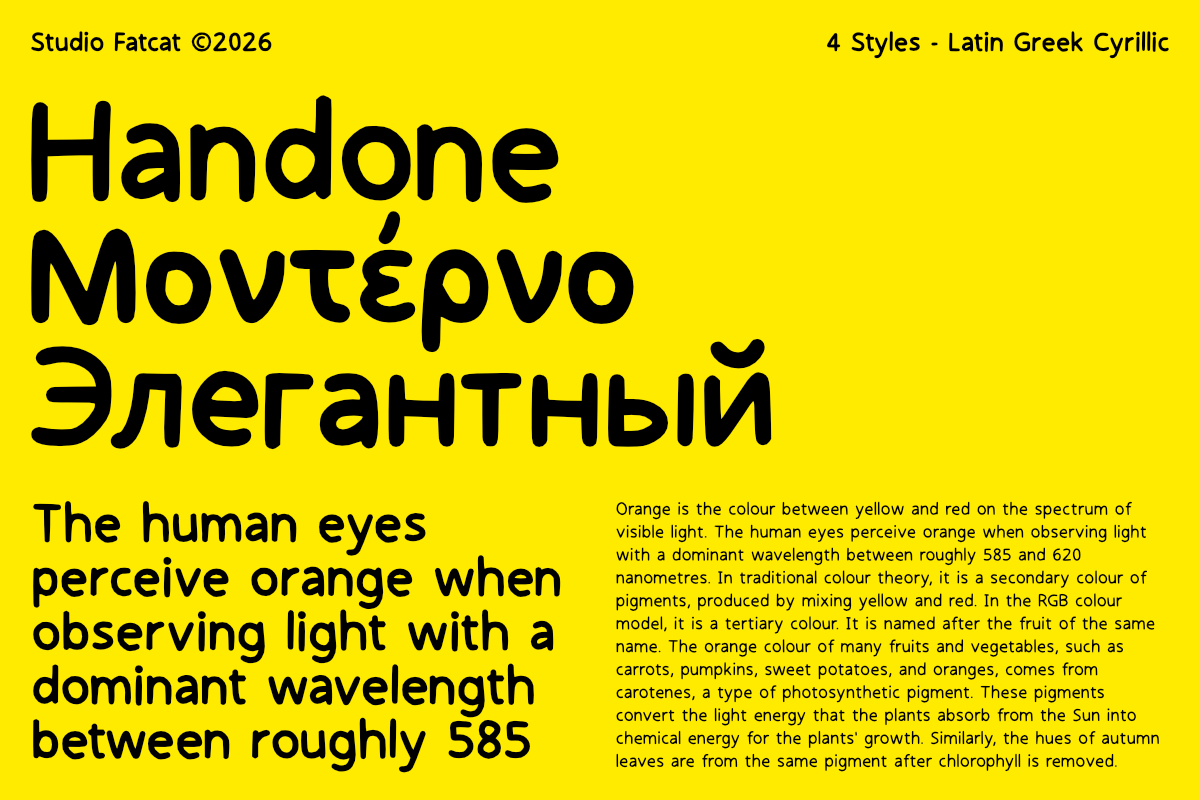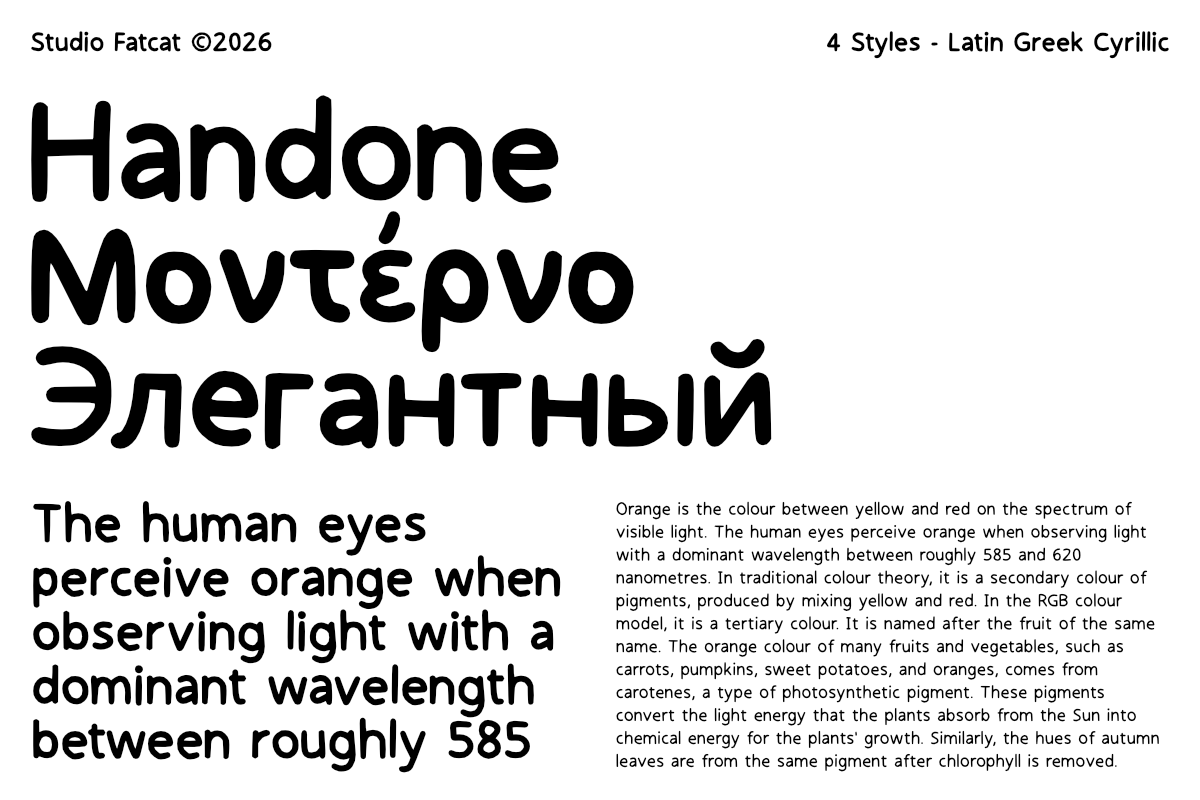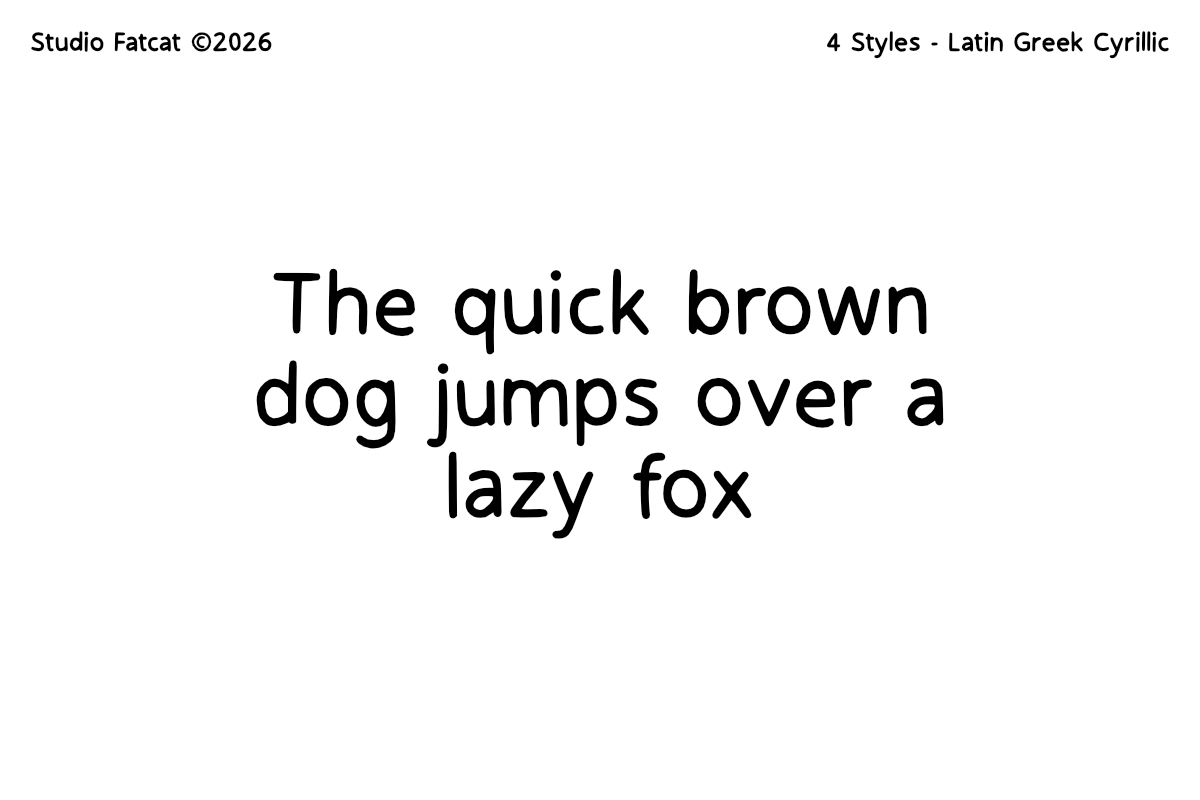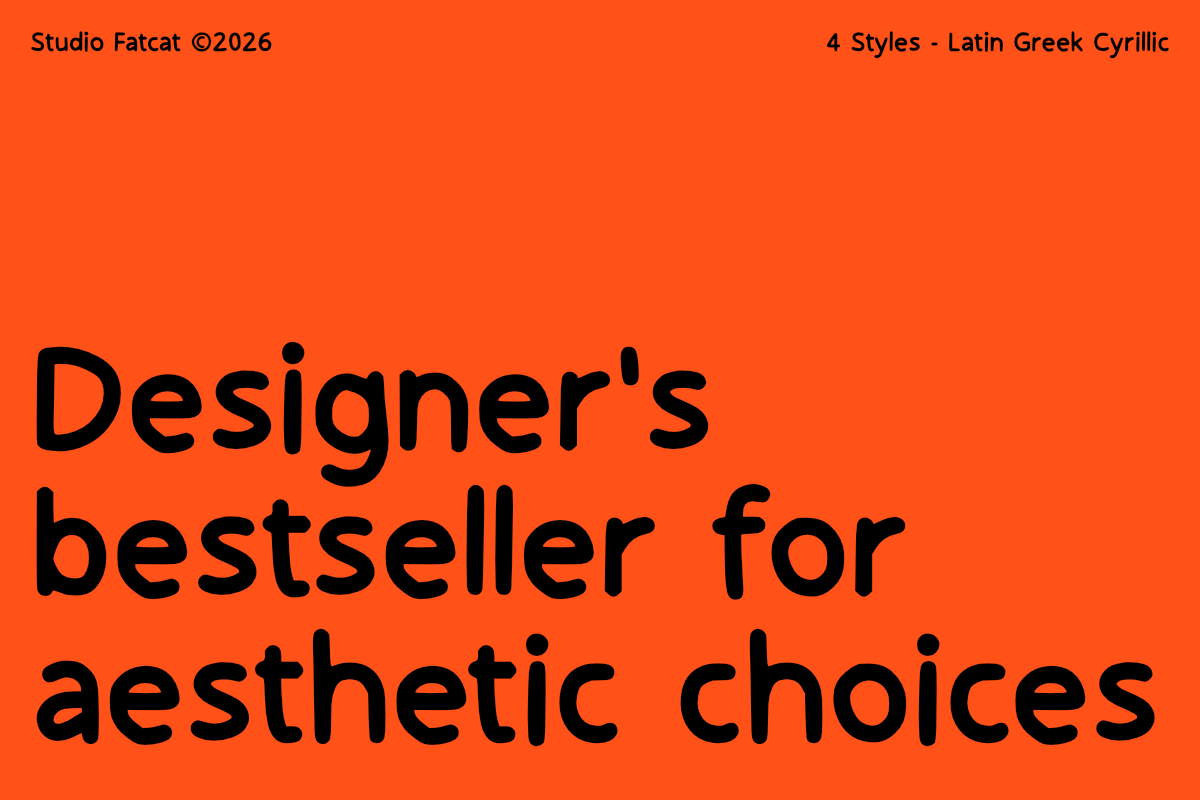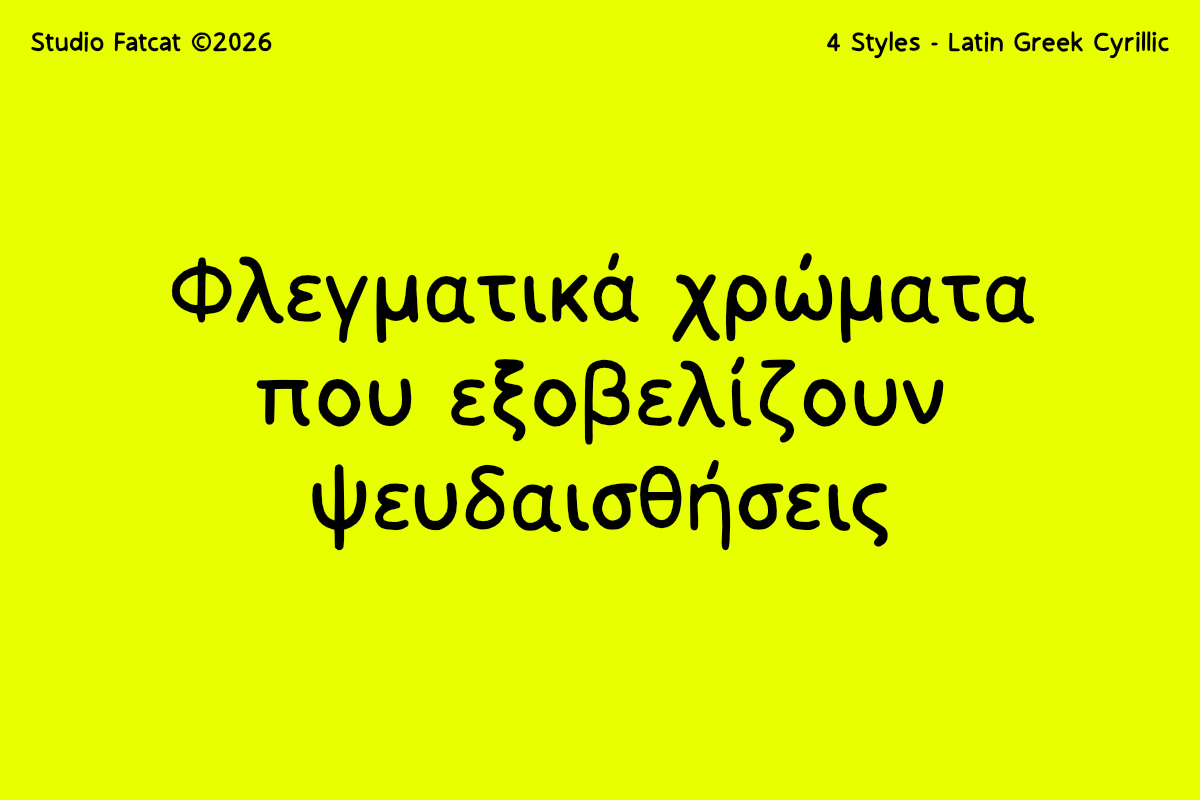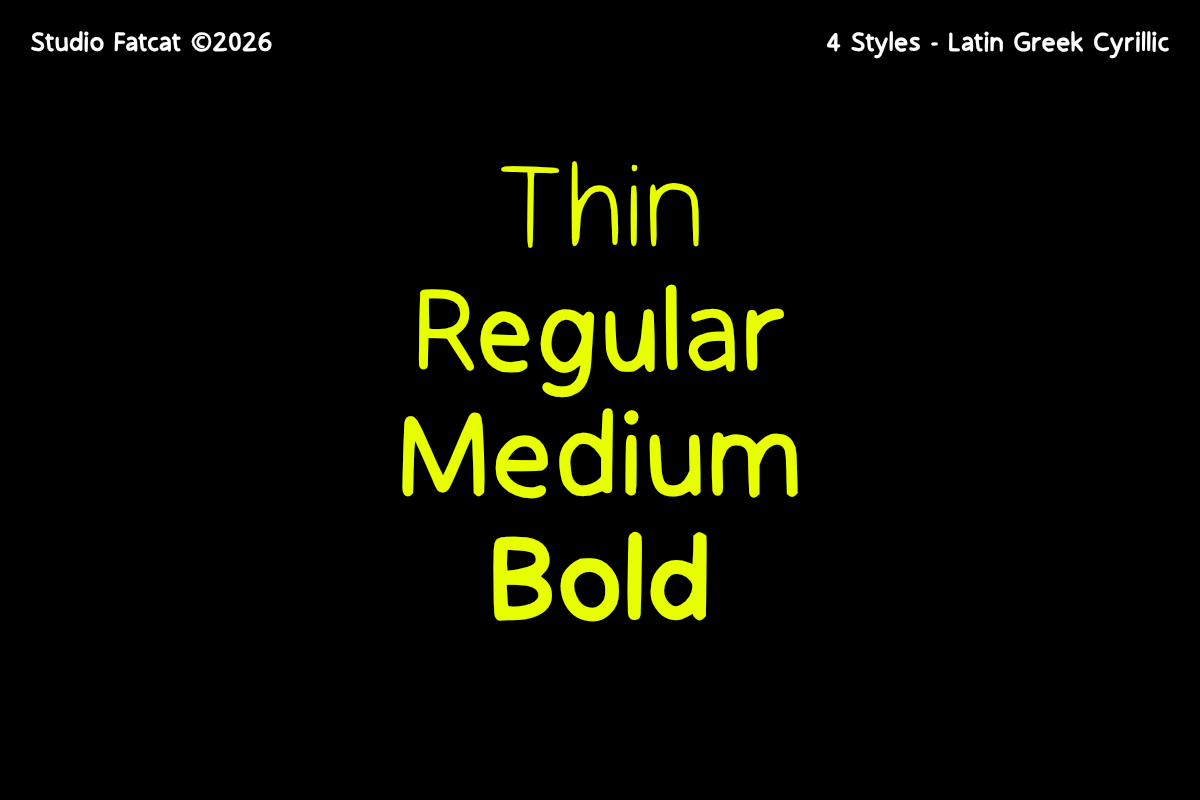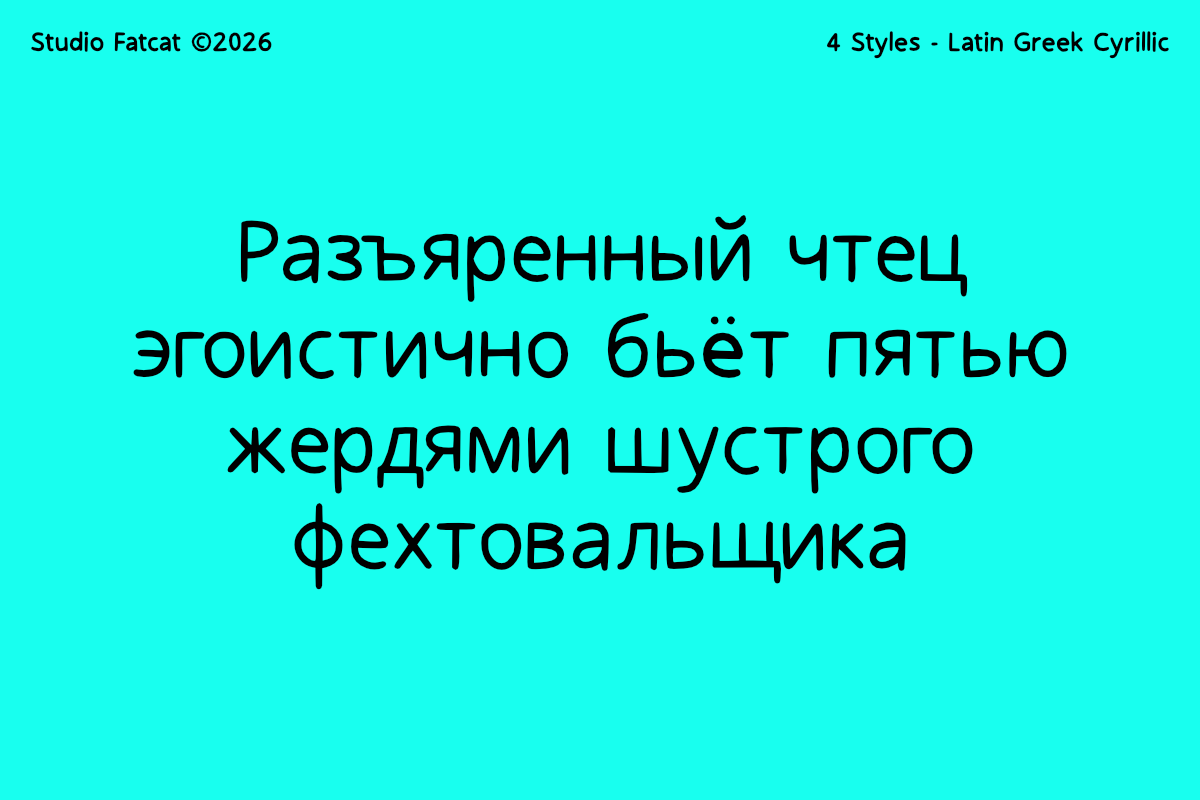
- Handone Free Handwritten Font Family
Handone is a warm and natural handwritten typeface designed to bring a personal touch to your designs. Its organic strokes and relaxed character make it feel authentic and approachable, perfect for projects that need a human feel rather than something overly polished or mechanical. Whether you’re creating branding, quotes, invitations, or social media graphics, Handone adds personality without sacrificing readability.
With four versatile styles—Thin, Regular, Medium, and Bold—you have the flexibility to build clear typographic hierarchy across your layouts. From delicate body text to strong, eye-catching headlines, This handwritten font adapts beautifully to both text and display use. It also supports three scripts—Latin, Greek, and Cyrillic—making it ideal for multilingual projects and global audiences.
Handone works especially well for branding, packaging, editorial design, posters, and digital content. Its balanced mix of charm and functionality allows you to use this handwritten font across a wide range of creative applications, giving your work a consistent, friendly, and professional look.